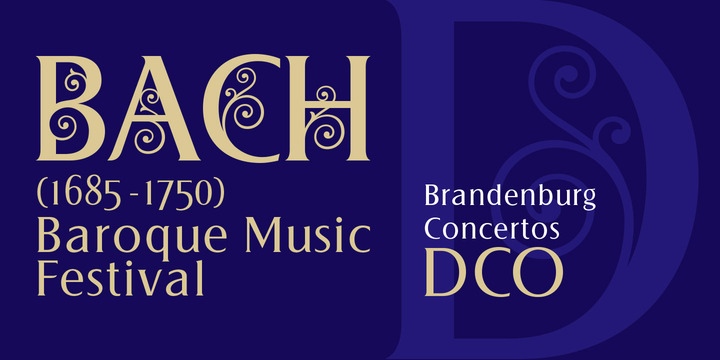
Lillianesque Font
This sophisticated typeface is perfect for vintage fashion branding, classic wedding invitations, elegant perfume packaging, upscale boutique signage, refined literary publications, luxurious spa materials, heritage brand identities, and timeless romantic marketing campaigns. Lillianesque Font delivers exquisite period charm in applications where classical elegance and feminine sophistication are essential for creating memorable brand experiences that celebrate timeless beauty and refined taste.
What makes Lillianesque Font so exciting is its masterful interpretation of Art Deco elegance with contemporary refinement. The font features gracefully proportioned letterforms with distinctive flourishes that capture the glamour of bygone eras while maintaining modern functionality. Each character has been thoughtfully crafted to evoke the sophistication of classic Hollywood and European haute couture while ensuring excellent readability across various luxury applications. The typeface's enchanting personality creates immediate connections to timeless elegance and refined femininity, making it perfect for brands seeking to communicate heritage luxury and enduring sophistication through their visual identity.
The Lillianesque Font includes elegant style variations: Regular, Bold, Light, and Ornamental versions. This refined collection allows designers to create sophisticated layouts and establish luxurious typographic treatments that capture the essence of classical beauty. Each style maintains the font's inherent elegance while providing different levels of decorative flourish for various high-end applications and romantic design themes.
This exquisite typeface represents the perfect choice for designers who understand the enduring power of classical elegance in creating authentic luxury brand experiences that transcend temporal trends.